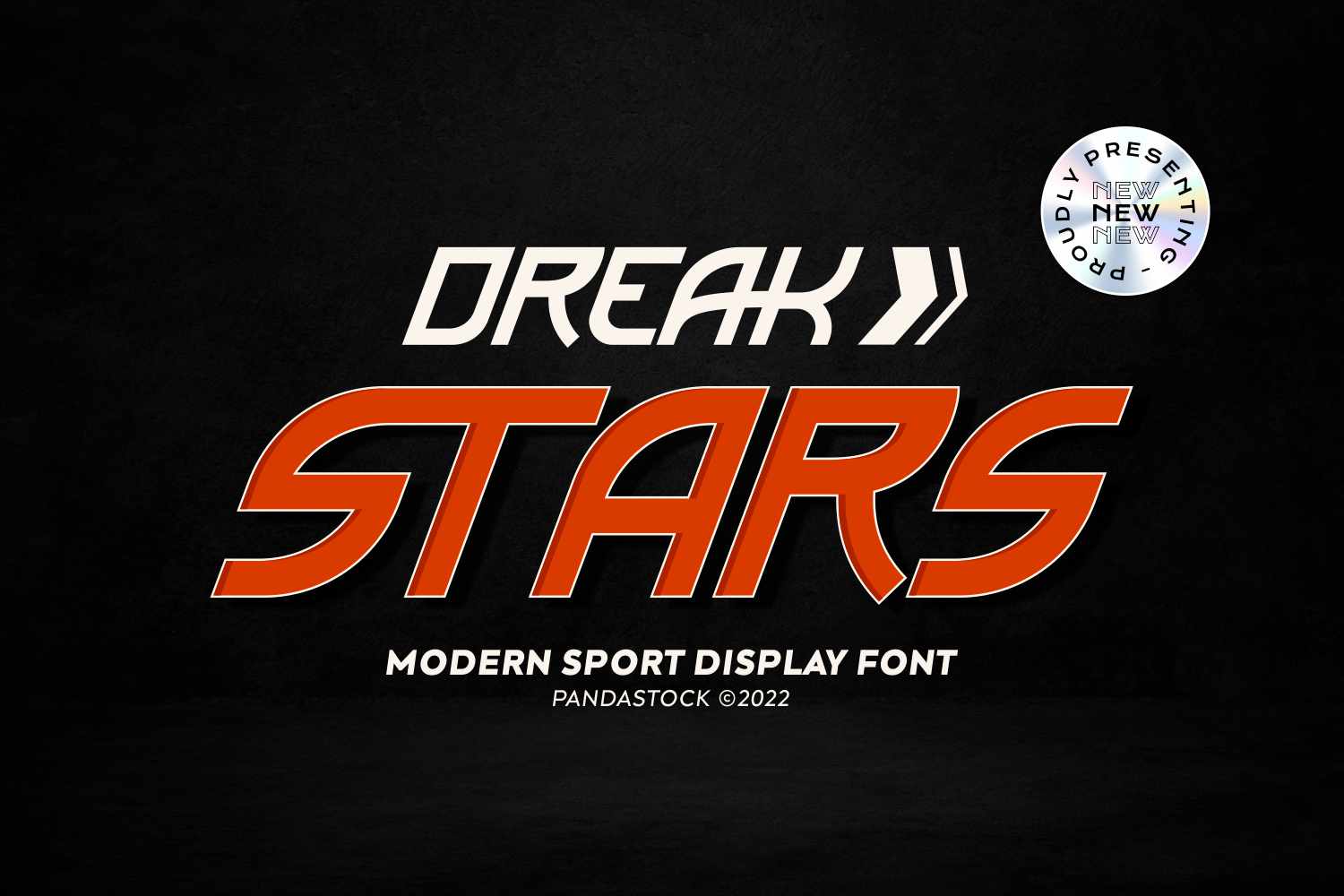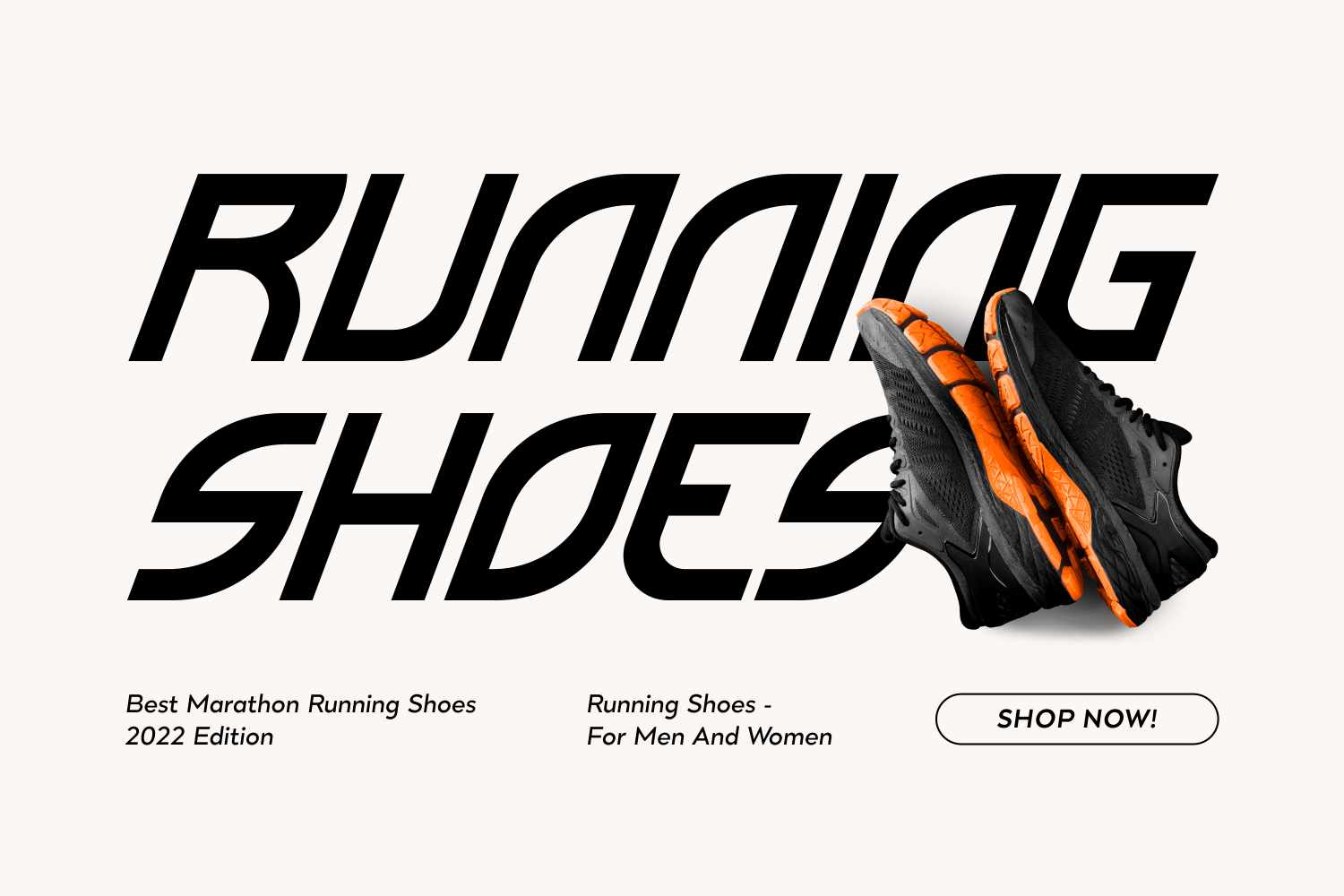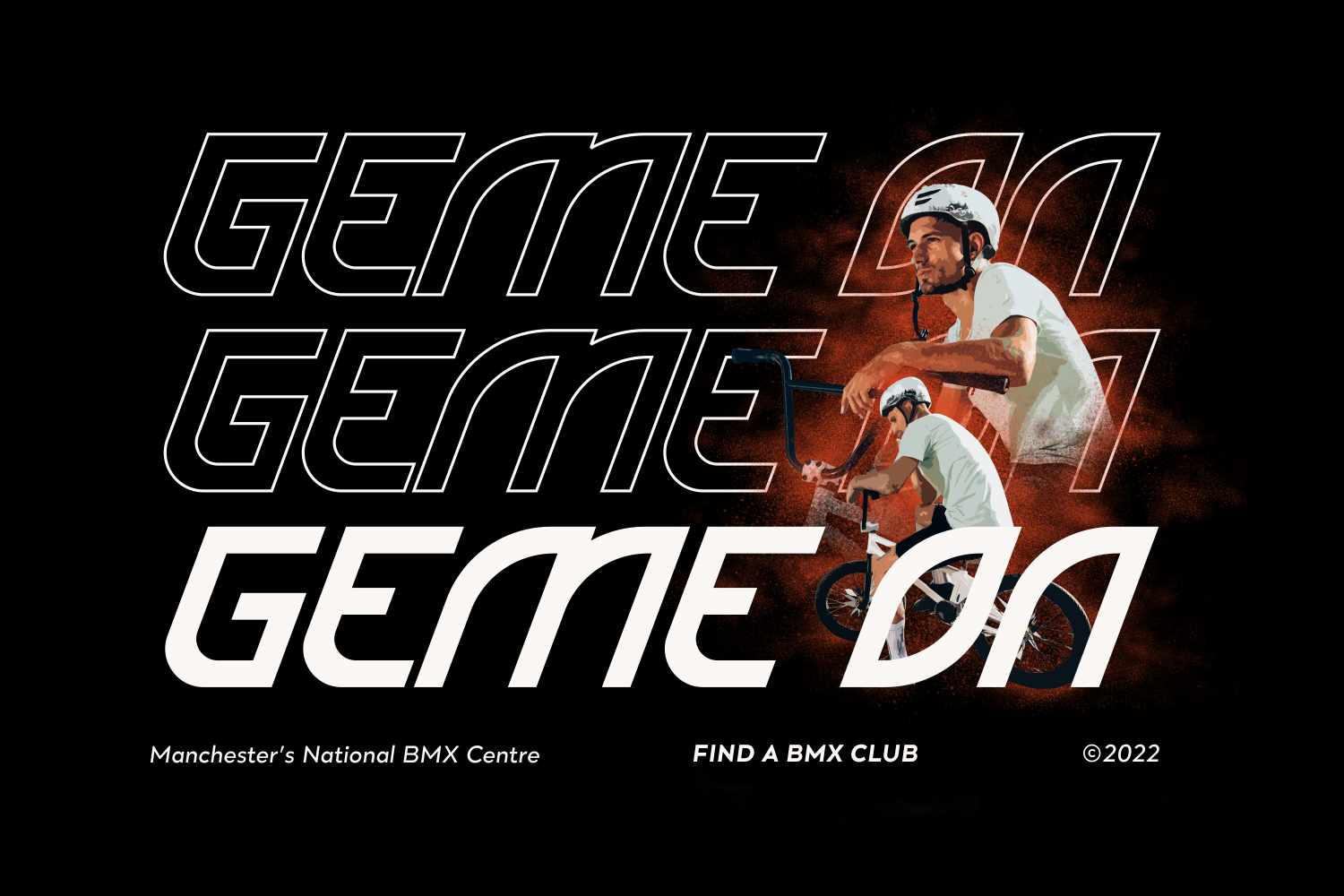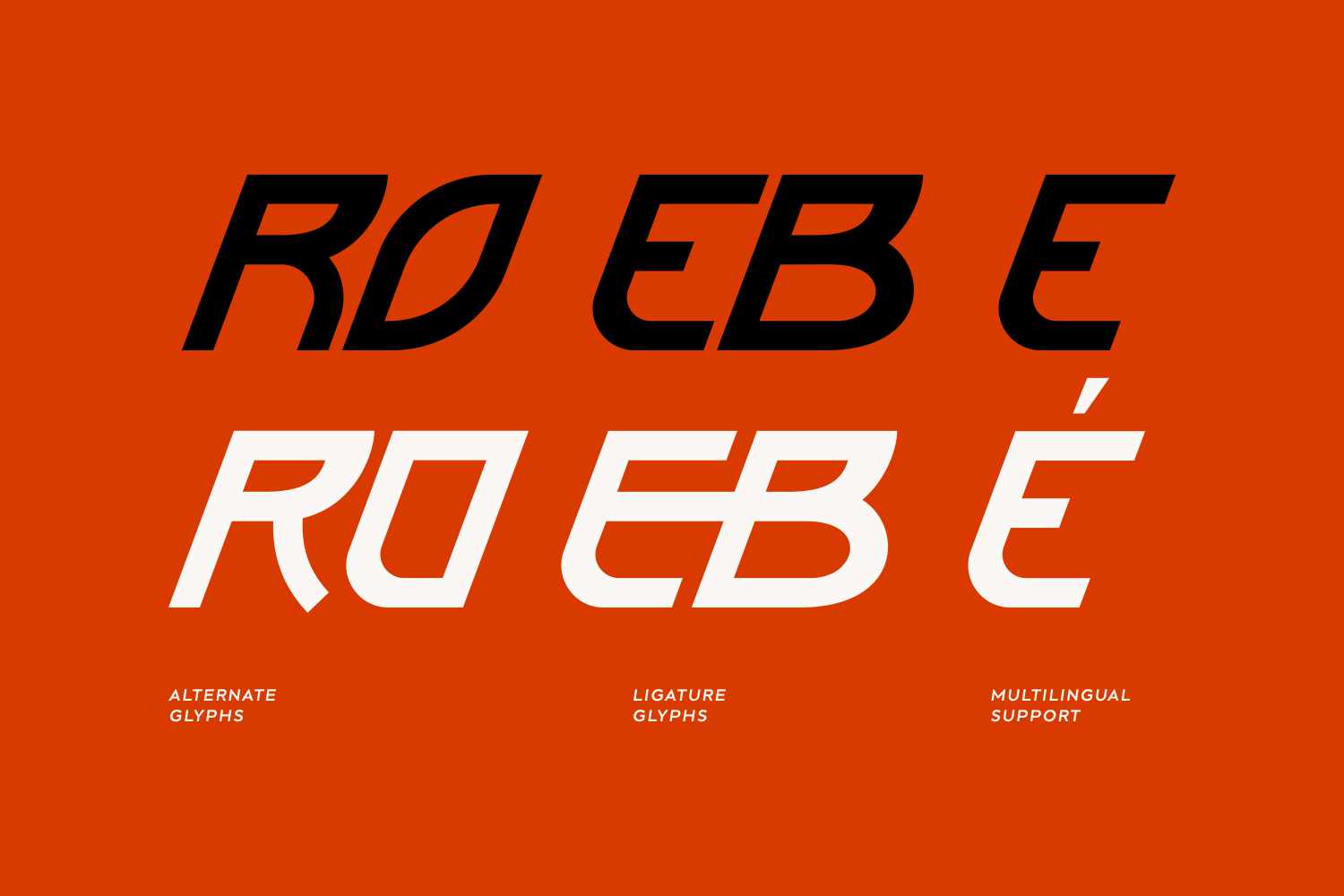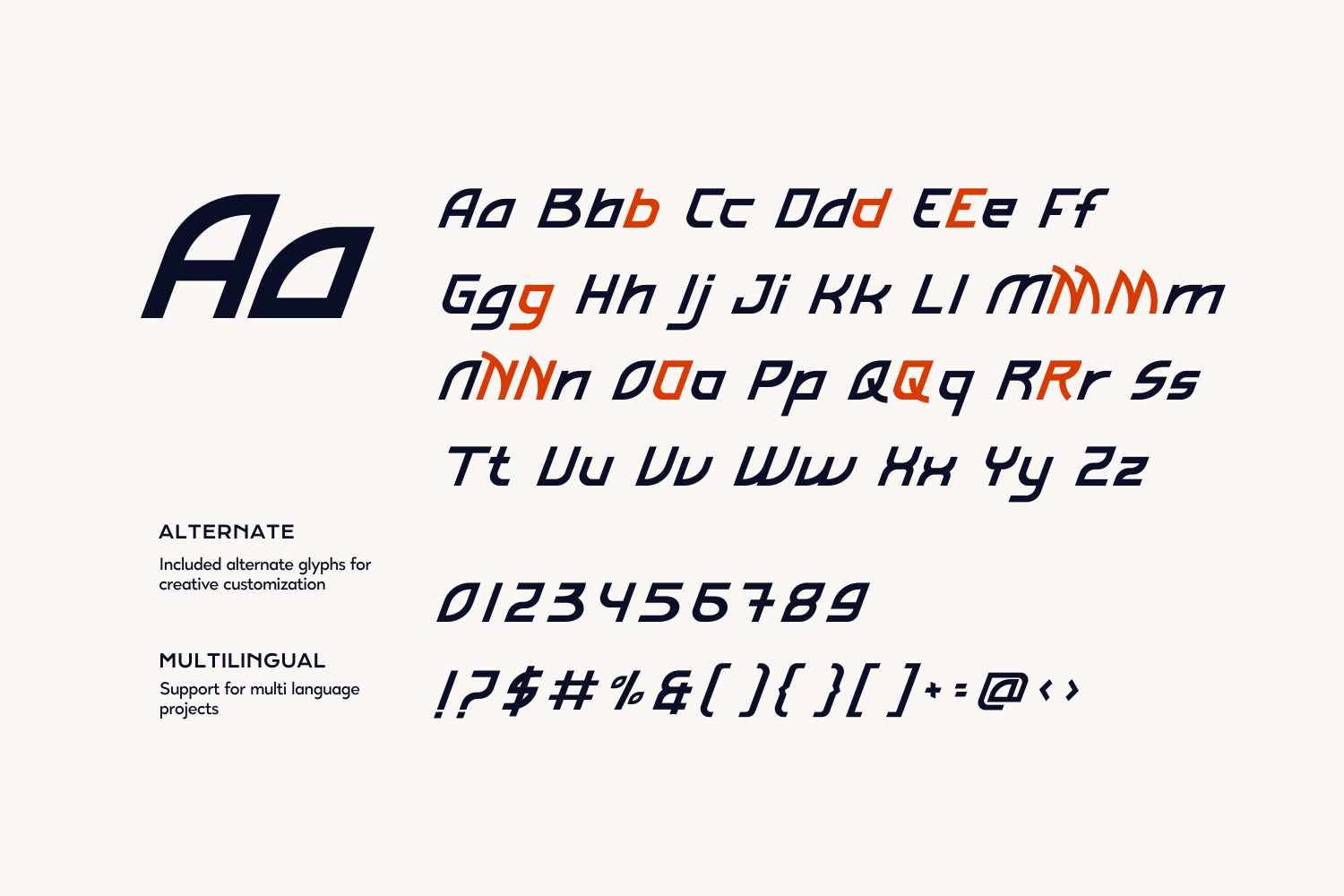
Dreak Stars
Dreak Stars is a Modern Sport Display Font designed with speed, energy, and boldness in mind. With its sharp edges, italicized flow, and dynamic letterforms, this typeface captures the spirit of motion and competition. Perfect for sports branding, esports logos, racing posters, and activewear designs, it delivers a striking presence that energizes every visual.
This font also includes alternate glyphs and ligatures, offering flexibility for creating impactful headlines and unique logotypes. Dreak Stars is an excellent choice for projects that need a powerful, futuristic, and athletic vibe, from team jerseys and sports ads to digital campaigns and merchandise.